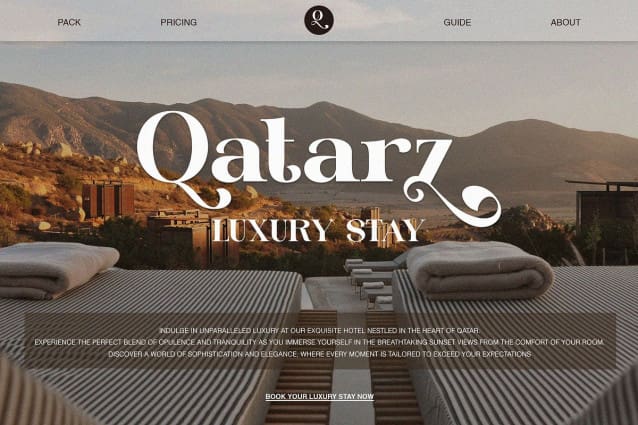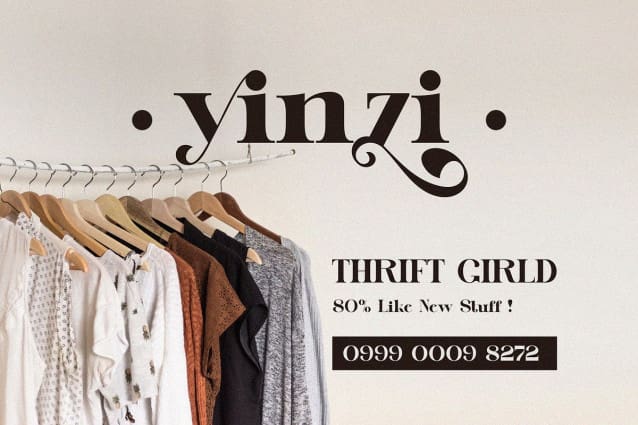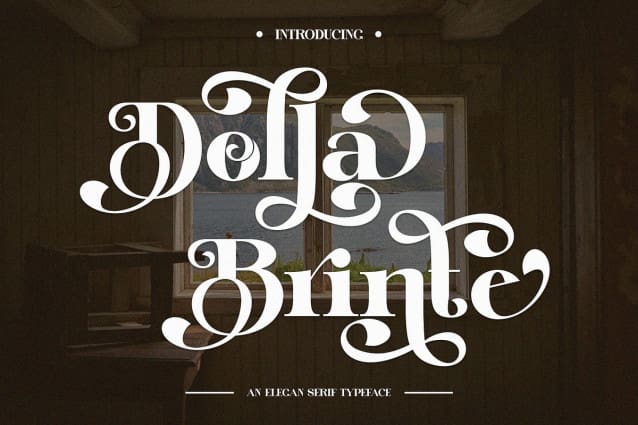
Dolla Brinte Font
Dolla Brinte Font – Modern and beautiful Display Serif Typeface inspired by the famous minimalist logo perfect for the purposes of designing templates, brochures, videos, advertising branding, logos, invitation, layout design, elegant crafting, beauty design and other